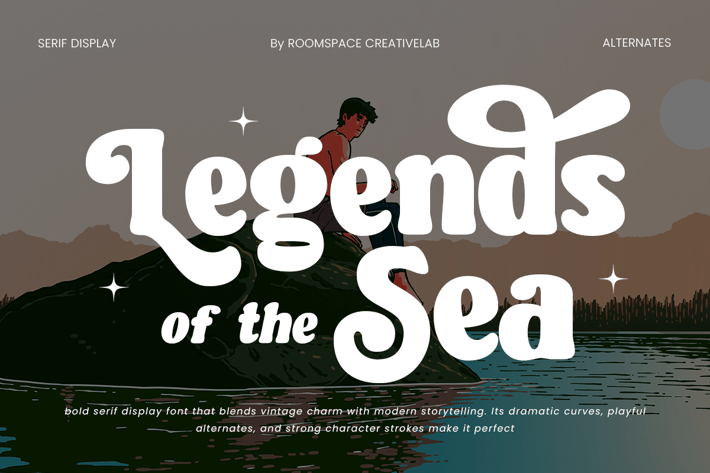
Legends of the Sea - Rounded Vintage Font
Legends of the Sea is a bold serif display font that effortlessly blends vintage charm with modern storytelling. Its dramatic curves, playful alternates, and strong character strokes give it a unique personality that's perfect for projects requiring a distinct, retro-modern aesthetic. With its versatile style, this font is ideal for branding, logos, posters, and social media graphics, bringing a unique touch to your designs. Legends of the Sea is ready to help you create stunning visuals that tell a story and capture your audience's attention.
Regular, Italic , Regular Extrude, Italic Extrude